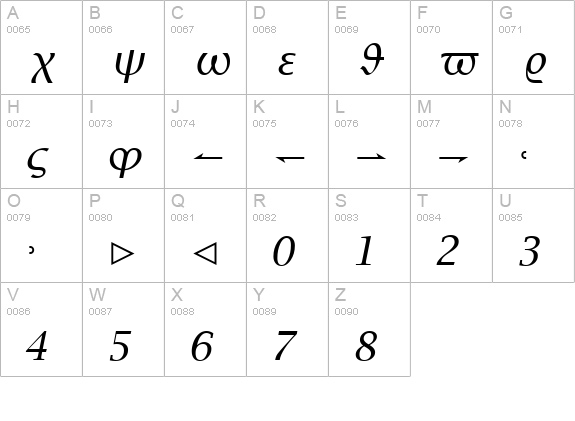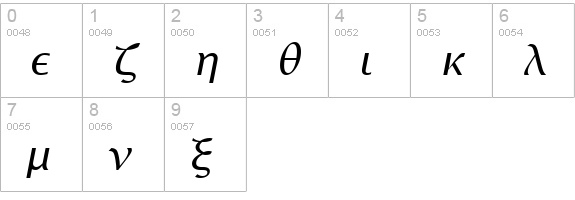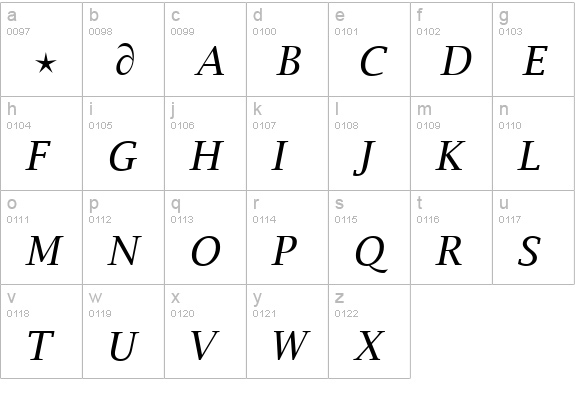
Math Italic is a distinctive, italic variant in the Math typeface family \xE2\x80\x94 well suited to design and typography projects.
Math Italic font is a stunning and versatile typeface that adds a touch of elegance and sophistication to any mathematical or scientific project. With its sleek and slender design, this font is perfect for equations, formulas, and mathematical notations. Its italicized style brings a unique and dynamic flair to your work, creating a visually appealing and professional appearance. Featuring clean lines and precise curves, Math Italic font ensures optimal readability, making it an excellent choice for both print and digital mediums. Whether you're working on a research paper, a textbook, or a scientific presentation, this font will elevate the visual impact of your content, making it more engaging and memorable. One of the best features of Math Italic font is that it is freely available to download at FontsMarket.com. This means that you can enjoy the benefits of this exceptional font without any cost or restrictions. It's a fantastic opportunity for students, teachers, researchers, and anyone else in need of a high-quality math font. FontsMarket.com is a reputable and reliable source for downloading fonts, offering a vast collection of typefaces for various purposes. With just a few clicks, you can easily access Math Italic font and incorporate it into your projects. The user-friendly interface of FontsMarket.com ensures a seamless and hassle-free downloading experience, allowing you to focus on your work without any distractions. Enhance your mathematical and scientific documents with the elegance and professionalism of Math Italic font. Its sleek design and italicized style will captivate your audience and elevate the visual appeal of your content. Don't miss the opportunity to download this remarkable font for free at FontsMarket.com and take your math-related projects to the next level.